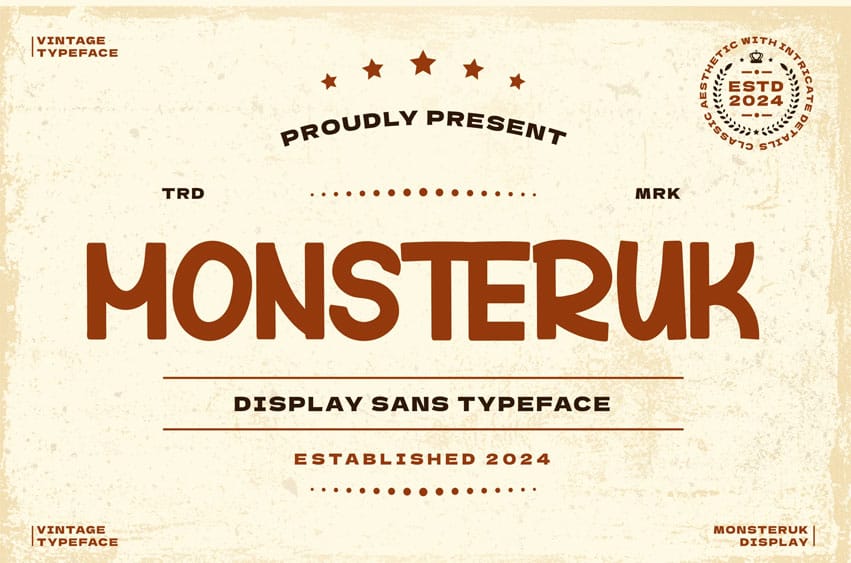
Monsteruk Font is a display sans typeface with a strong vintage and classic feel, designed to be bold yet approachable. Its rounded and playful letterforms make it perfect for logos, posters, product packaging, labels, retro branding, and standout headlines.
This font combines nostalgic charm with a modern touch, making it versatile for various creative projects that need a retro, classic, or contemporary vibe.